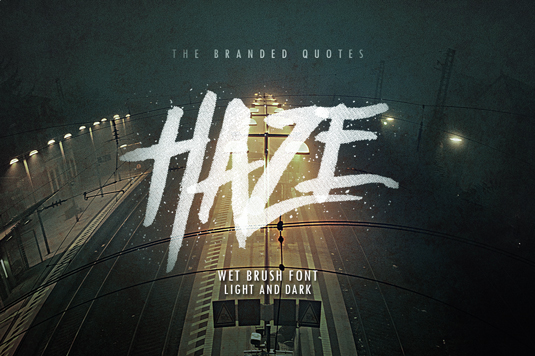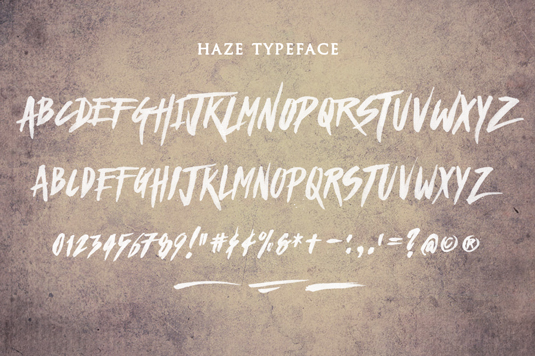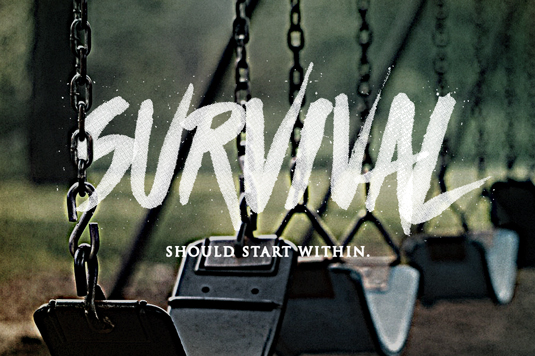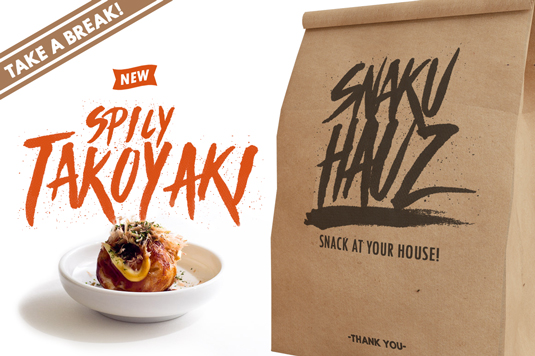
Font of the day: Haze
Haze from The Branded Quotes
Created by the team at The Branded Quotes, Haze is a wet brush font with splatters all over its glyph and bears its own watercolor texture. Band and restaurant logos, book and album covers and brand identity are just a few projects served by this one of a kind typeface.